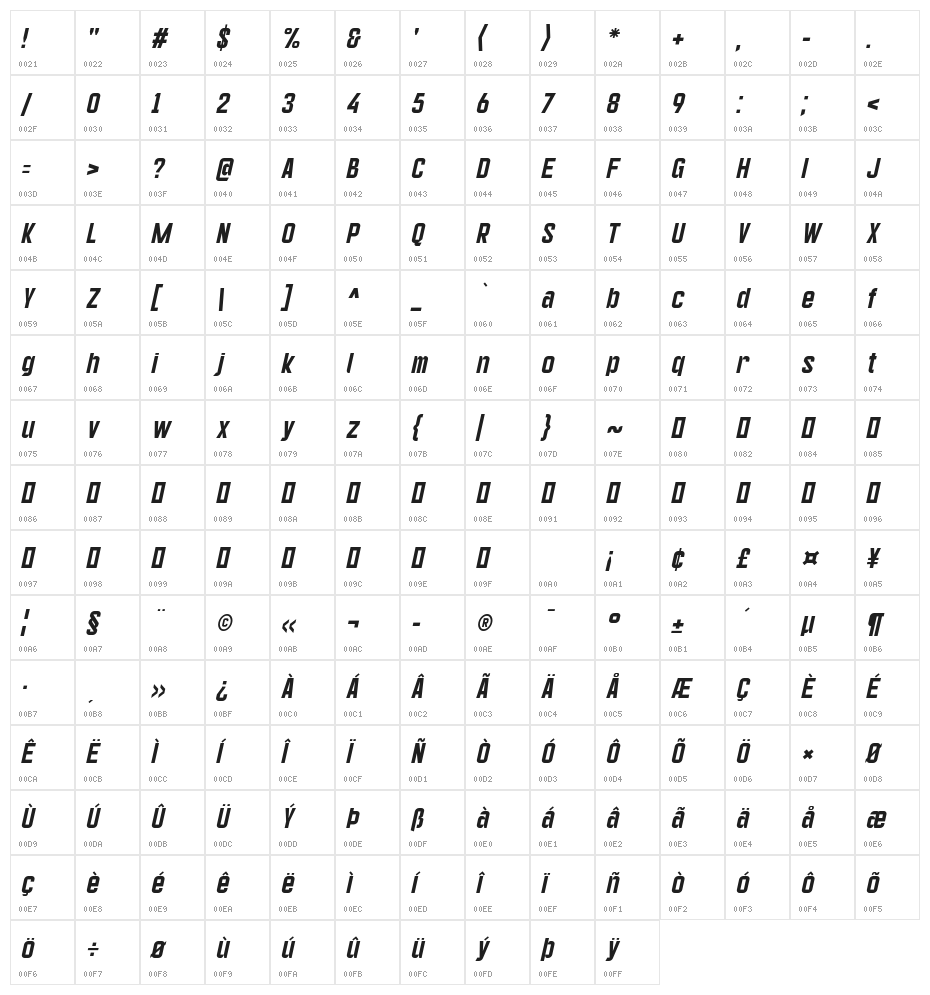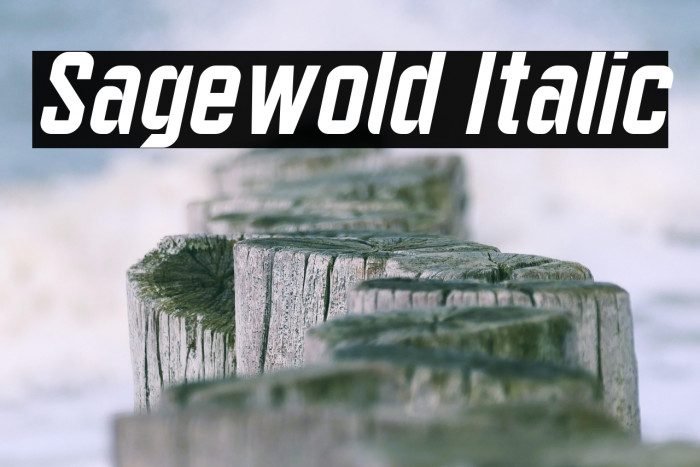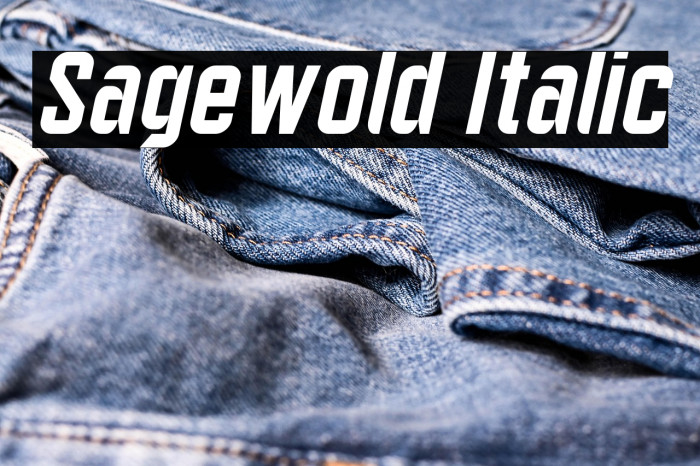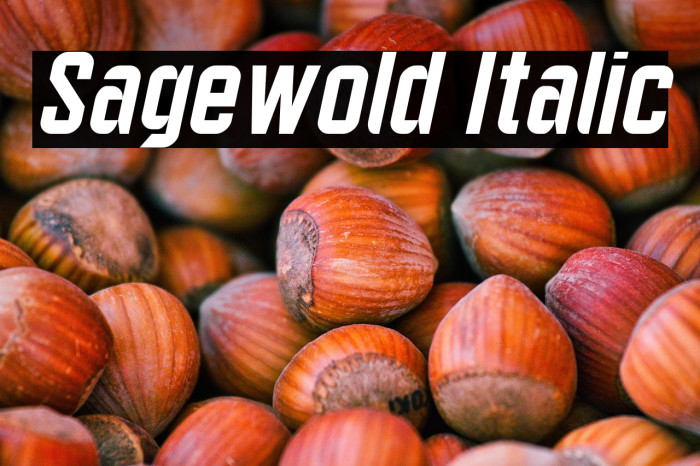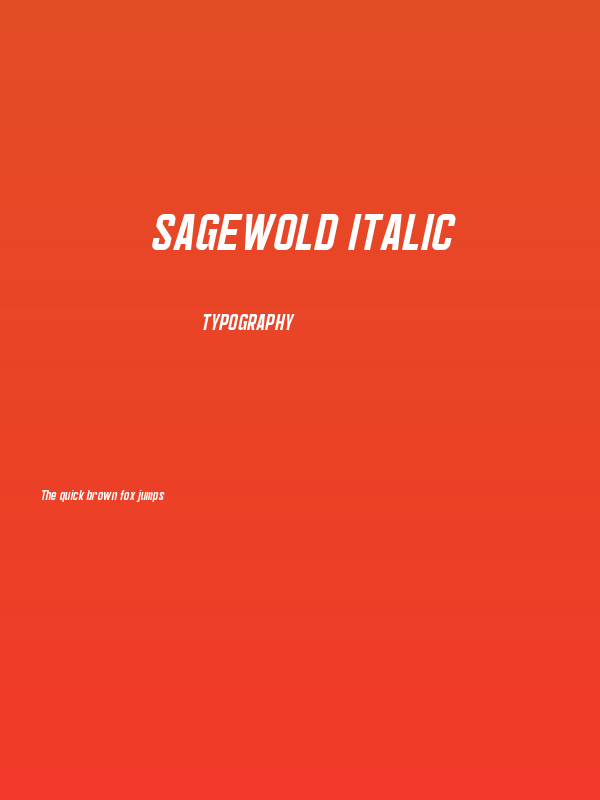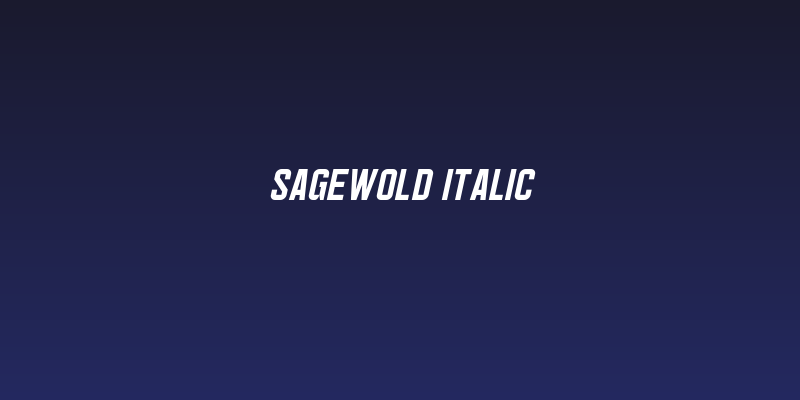
Sagewold Italic Font
Sagewold Italic Description
This font features a dynamic and modern italic style with a forward-leaning slant, giving it a sense of motion and energy. The characters are bold and slightly condensed, with clean lines and sharp edges that enhance readability. The uppercase and lowercase letters maintain a consistent style, while the numerals and special characters complement the overall design. The font's structure is well-balanced, making it suitable for various design applications.
| Proposed Projects | Ideal for sports branding, dynamic posters, modern advertising, and digital media projects. |